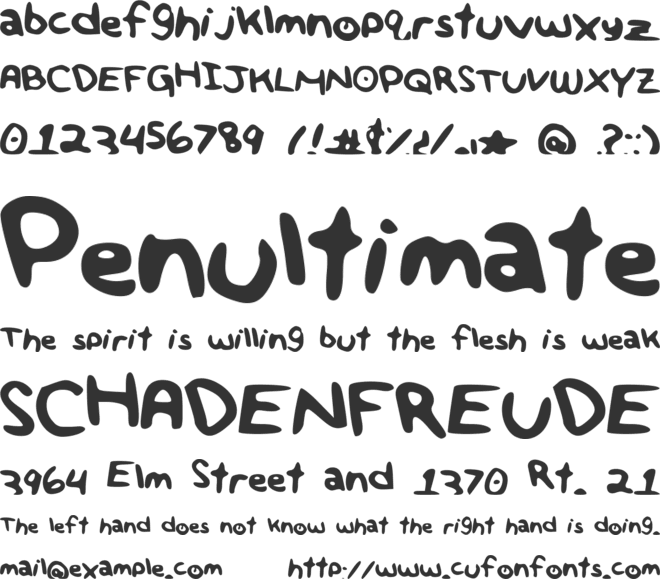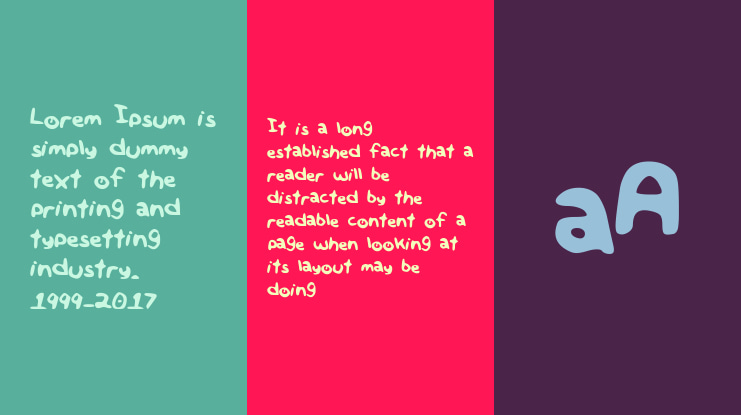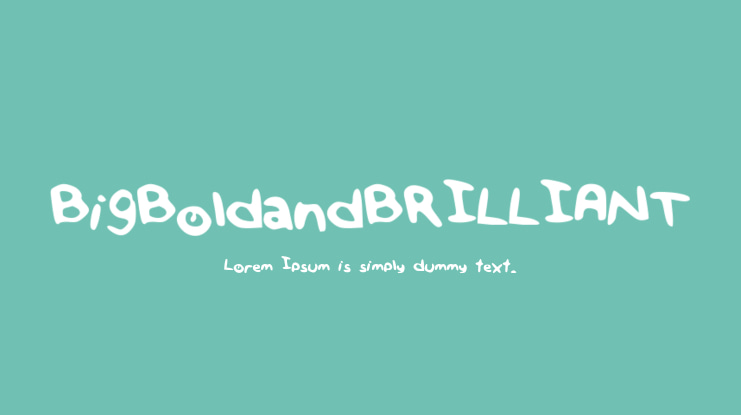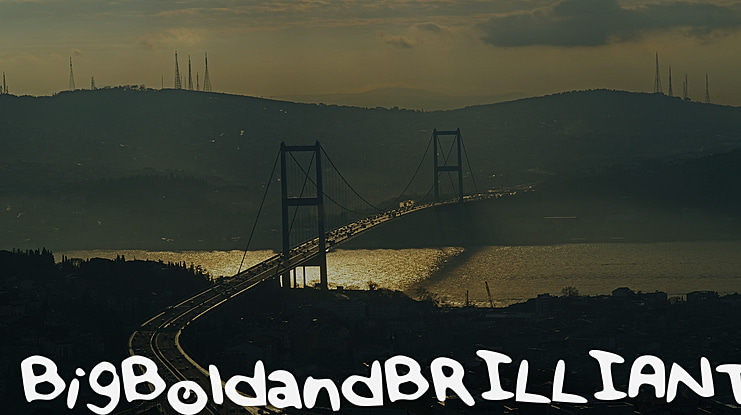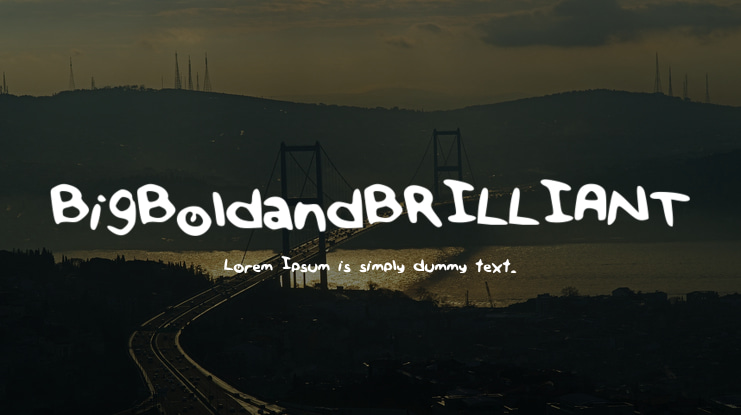
BigBoldandBRILLIANT Font
I made this font from my handwriting. The program isnt the best, so it might be a little off with the commas! Sorry about that!